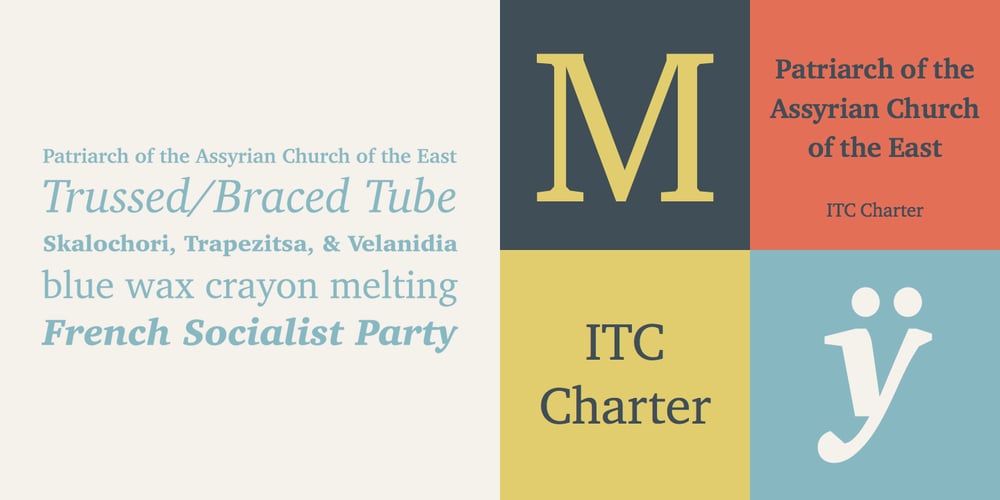
ITC Charter
ITC Charter font
ITC Charter Font Family was designed by Matthew Carter and published by ITC. ITC Charter contains 6 styles and family package options. Charter was designed in the mid-1980s by Matthew Carter. The typeface was designed with the limitations of low- and middle-resolution output devices in mind; hence the squared off serifs and the economy of diagonals and curves. The design, however, became an instant success on its own merits. It is an excellent everyday typeface for a wide variety of uses including books and technical manuals. Charter offers small cap, extension and alternate typographer sets that help to make it more versatile and functional. ITC bought the Charter designs in 1993, but Bitstream retained the right to sell the original designs.